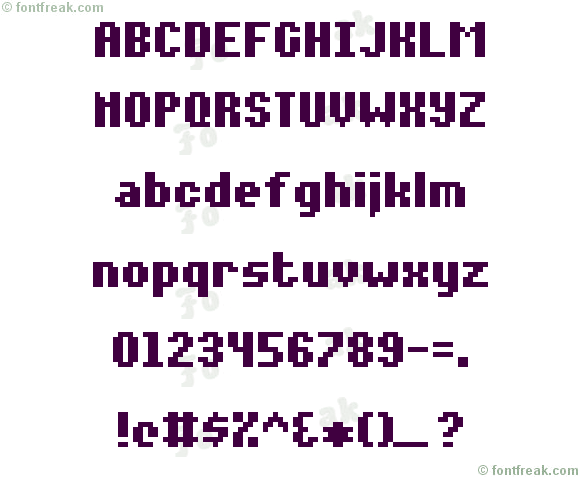
Notalot35 Regular
Notalot35 Regular, designed by Andrew McCluskey in 2012, is a unique display font that captures attention with its bold, pixelated aesthetic. This typeface falls into the category of decorative fonts, making it ideal for projects that require a distinctive visual impact. The font features a consistent stroke weight that lends itself to a block-like appearance, while the overall design reflects a retro digital vibe reminiscent of early computer graphics. The spacing between letters is relatively tight, which enhances its strong presence on any medium.
The Notalot35 Regular font is particularly well-suited for a variety of creative applications. It shines in settings such as video game graphics, where its pixelated style can evoke nostalgia and excitement. Additionally, it can be effectively utilized in music album covers, helping to convey a sense of edginess or retro flair. Restaurant menus that aim for a quirky aesthetic can also benefit from its playful character, making the dining experience more memorable. Furthermore, this font can be a great choice for promotional materials targeting tech-savvy audiences, offering a modern twist to traditional marketing collateral.
What truly sets Notalot35 Regular apart is its ability to blend nostalgia with modern design sensibilities. Whether used in digital or print formats, this font's striking visual presence ensures that it will leave a lasting impression on viewers, making it a standout choice for various creative projects.